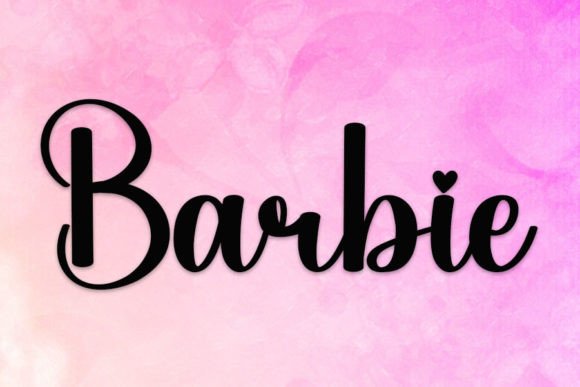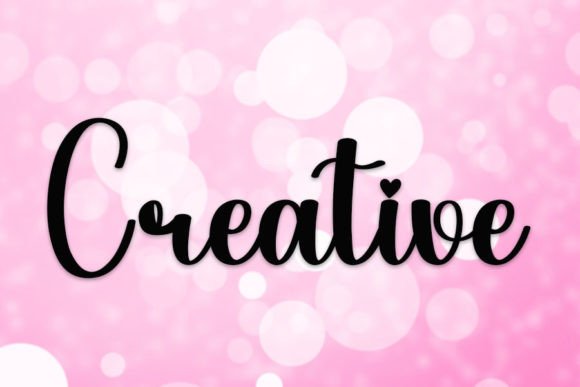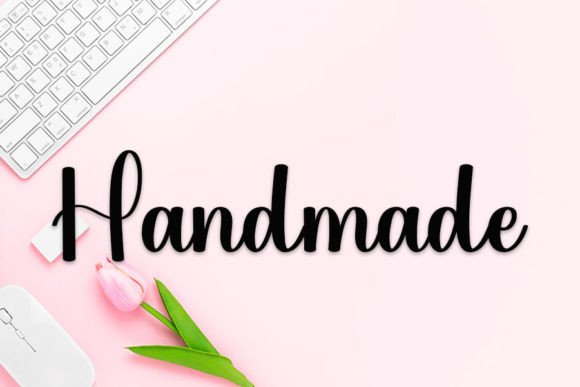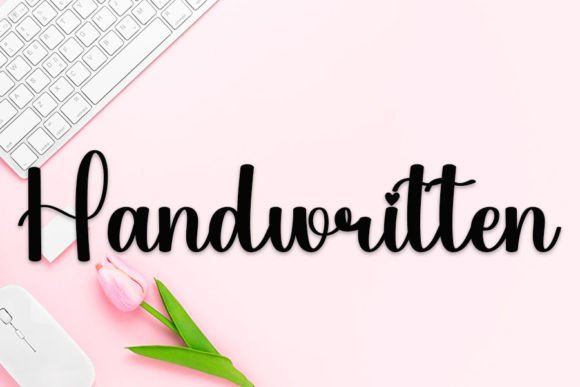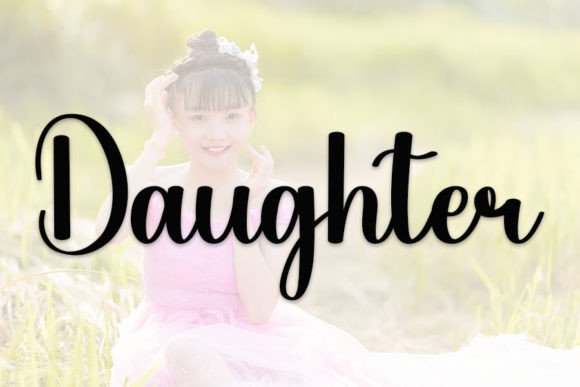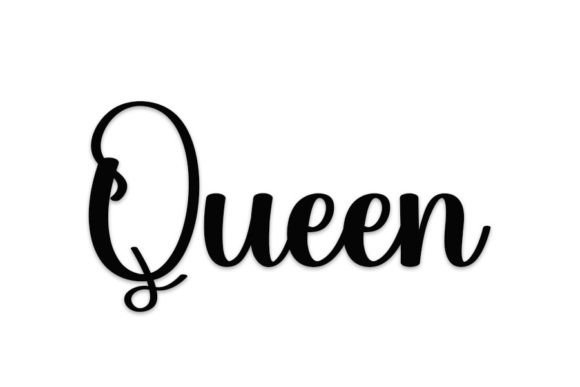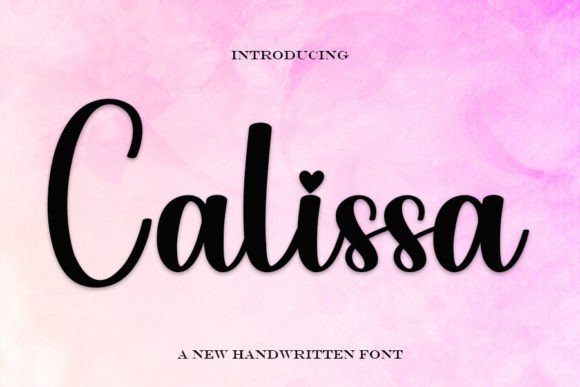
Discover the Elegance of Calissa Font: Elevate Your Designs with Timeless Style
Are you on the hunt for a font that exudes elegance, sophistication, and a touch of timeless charm? Look no further than the Calissa Font. This stunning handwritten font is designed to add a beautiful, refined touch to any project, making it perfect for designers and crafters seeking to create visually captivating designs. In this article, we’ll dive into the world of Calissa Font, exploring its unique features, the inspiration behind its creation, and how you can harness its beauty to elevate your designs.
The Essence of Calissa Font
Calissa Font is described as a neat and beautiful handwritten font, characterized by an elegant touch that sets it apart from other fonts in its category. Its incredibly distinct and timeless style is what makes Calissa a favorite among designers and crafters. Whether you’re working on a branding project, crafting a logo, or simply looking to add some personality to your digital or print materials, Calissa Font offers the perfect blend of sophistication and charm.
Inspiration Behind Calissa Font
The creation of Calissa Font was inspired by the desire to produce a typeface that embodies elegance, grace, and a sense of nostalgia. The designers aimed to craft a font that not only stands out for its beauty but also communicates a sense of timelessness, making it versatile enough to be used across various design projects. The result is a font that feels both classic and contemporary, capable of enhancing any design with its presence.
Key Features of Calissa Font
- Elegant Handwritten Style: Calissa Font boasts a beautiful, handwritten appearance that adds a personal touch to any project.
- Timeless Appeal: Its classic yet modern design ensures that your work remains relevant and stylish for years to come.
- Versatility: Perfect for a wide range of projects, from logos and branding to invitations, packaging, and more.
- Distinctive Character: The font’s unique style ensures your designs stand out from the crowd, capturing the attention of your audience.
Using Calissa Font in Your Designs
Integrating Calissa Font into your projects is straightforward, thanks to its compatibility with various design software and platforms. Here are some ideas to get you started:
- Branding and Logos: Use Calissa Font to create a memorable logo or to develop a cohesive brand identity that speaks to elegance and sophistication.
- Digital and Print Materials: Enhance your website, social media graphics, brochures, and business cards with the elegant touch of Calissa Font.
- Crafting and DIY Projects: Add a personal and stylish element to your handmade crafts, such as journals, planners, and decorative items.
Tips for Maximizing the Impact of Calissa Font
To get the most out of Calissa Font, consider the following tips:
- Pair it Wisely: Combine Calissa Font with complementary fonts to create visual interest and hierarchy in your designs.
- Experiment with Colors: While Calissa Font looks stunning in classic colors like black and white, don’t be afraid to experiment with different hues to match your brand’s palette or project theme.
- Play with Sizes: Utilize varying font sizes to emphasize certain elements of your design, creating a dynamic and engaging visual experience.
Calissa Font is more than just a typeface; it’s a design element that can transform your projects with its elegant, timeless style. Whether you’re a professional designer or a crafting enthusiast, Calissa offers the perfect opportunity to infuse your work with sophistication and charm. By incorporating Calissa Font into your designs, you’re not just choosing a font; you’re embracing a style that will elevate your work and leave a lasting impression on your audience.
So, fall in love with the distinct and timeless style of Calissa Font, and let it guide you in creating spectacular designs that stand out in any medium. Discover the elegance of Calissa Font today and take your designs to new heights of beauty and sophistication.